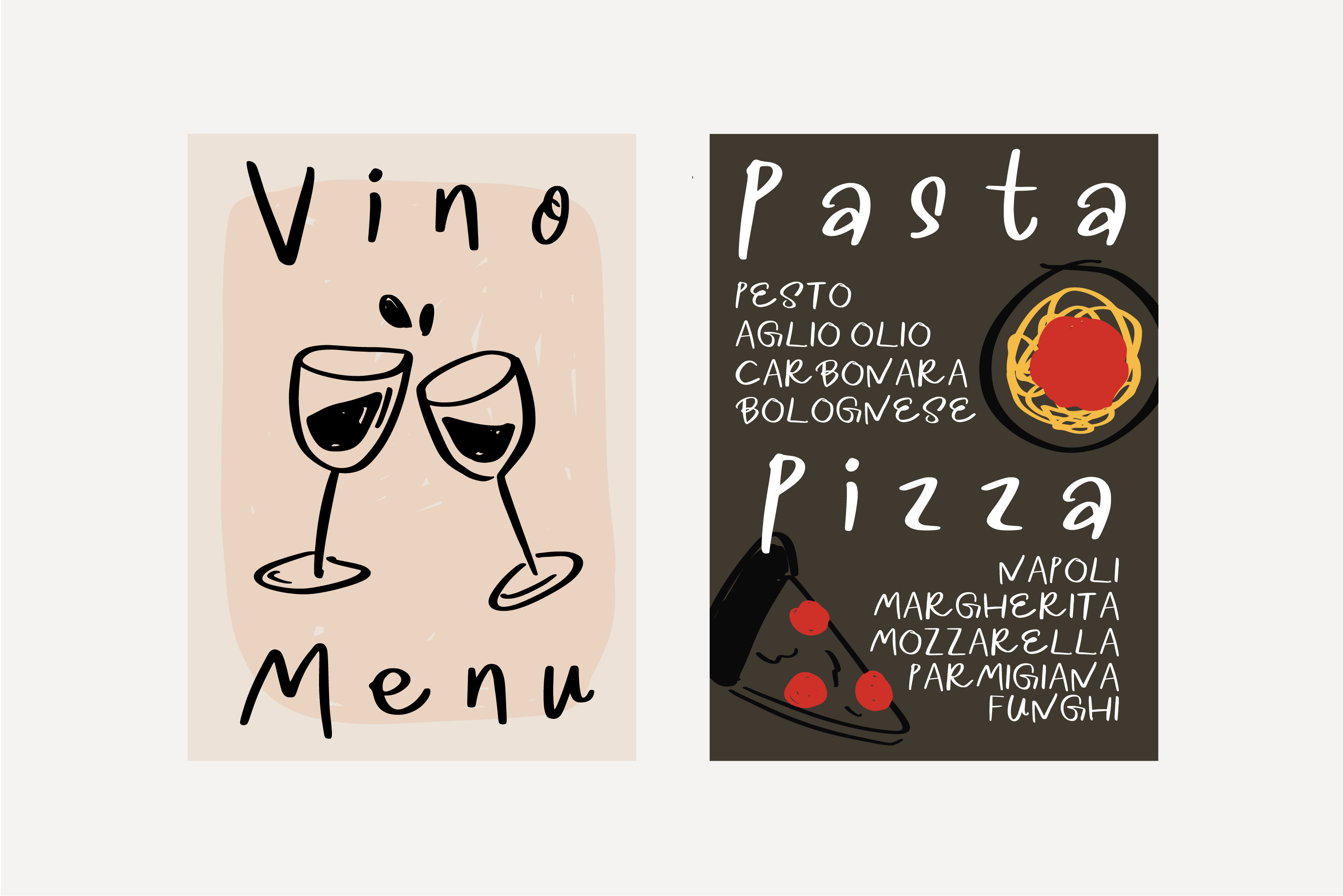
Free Spirit Font
A handwritten font with personality—every letter has a character of its own, bringing a natural and expressive feel to your designs. Whether you're working on branding, logo design, packaging, invitations, social media graphics, or website headers, this font adds a human touch that makes your work more approachable, warm, and engaging.
Its organic, hand-drawn style makes it a great choice for modern creatives, small business owners, and designers looking for a font that feels both playful and professional. Perfect for adding a relaxed, artistic vibe to your projects while keeping things polished and stylish.